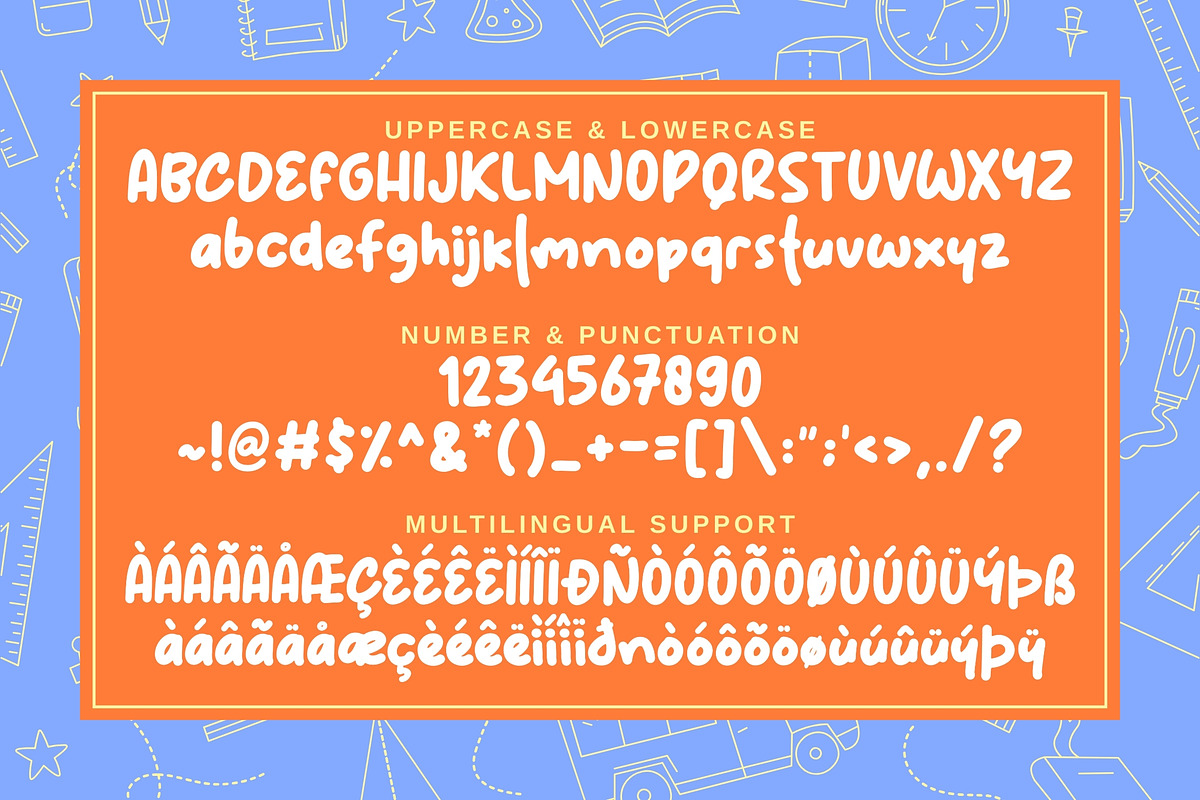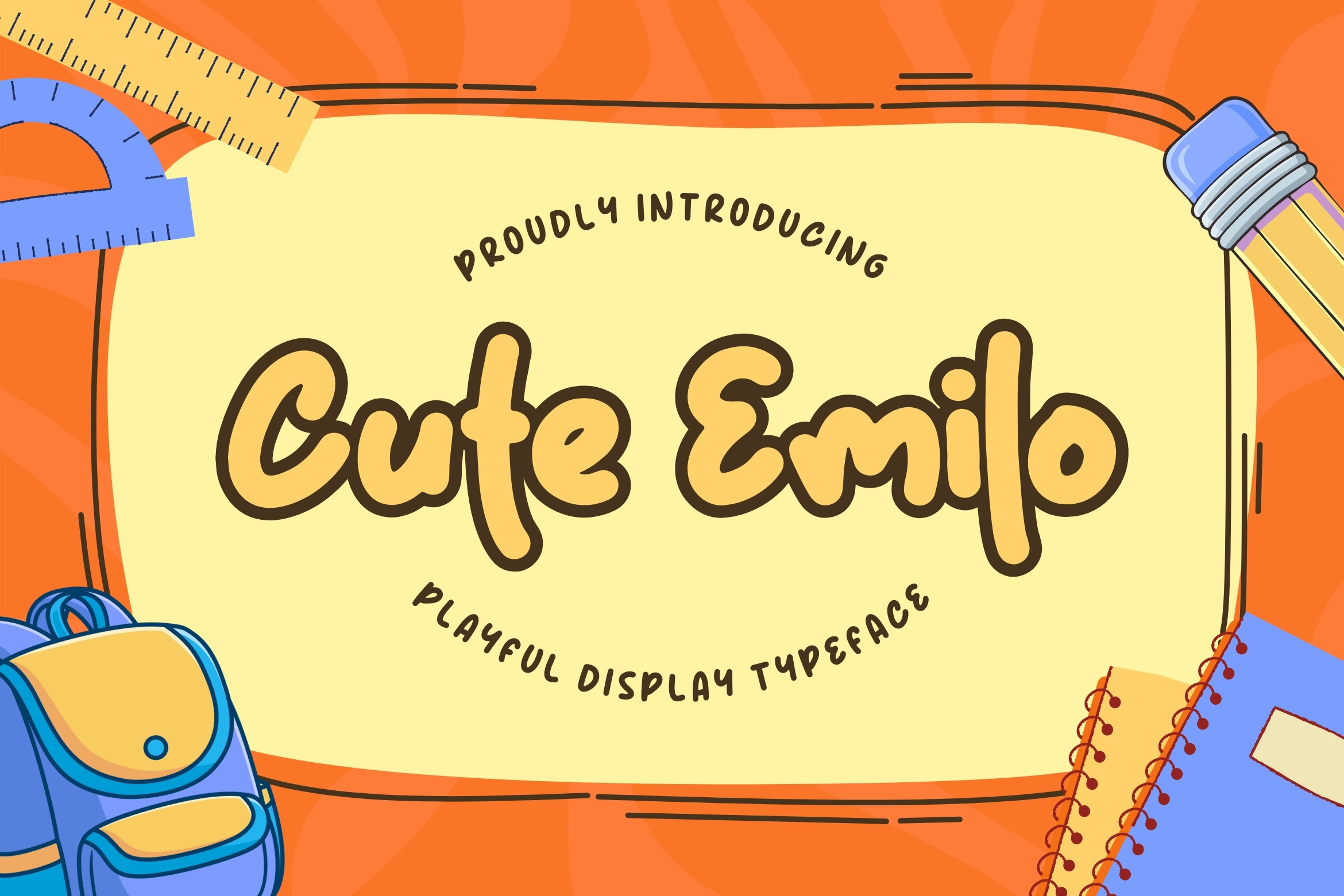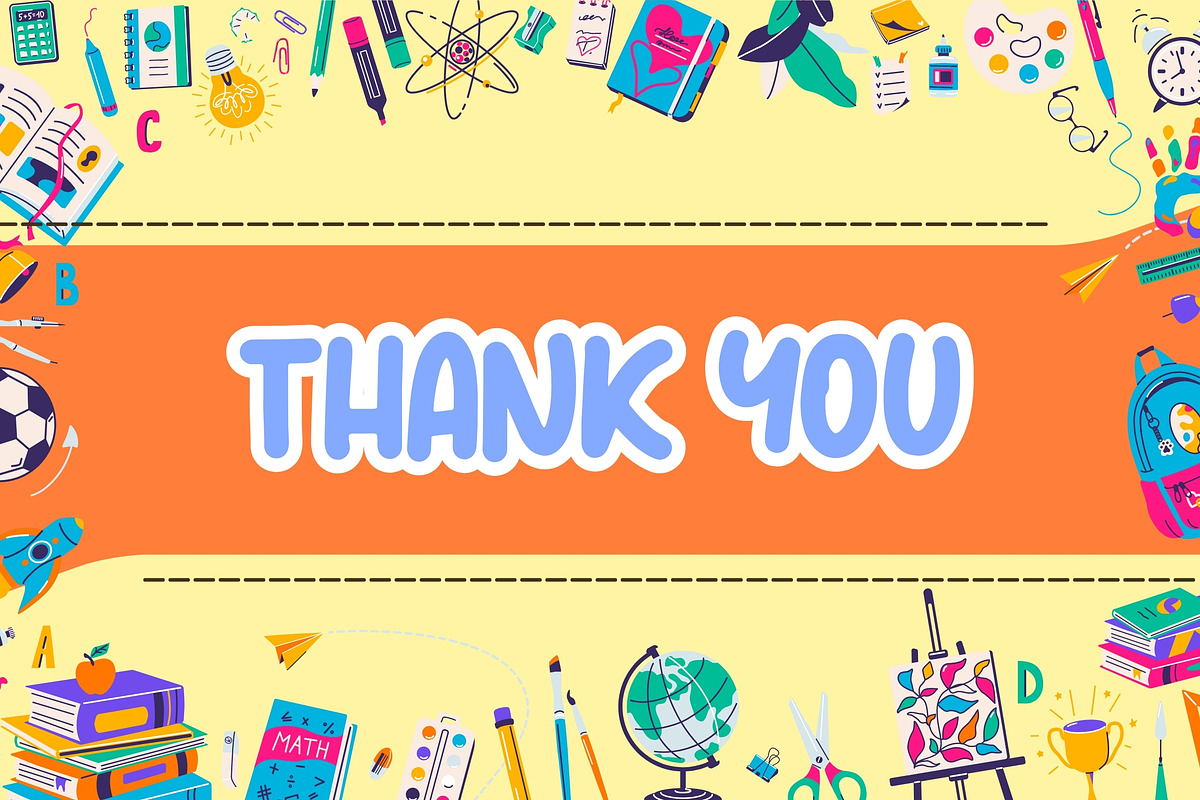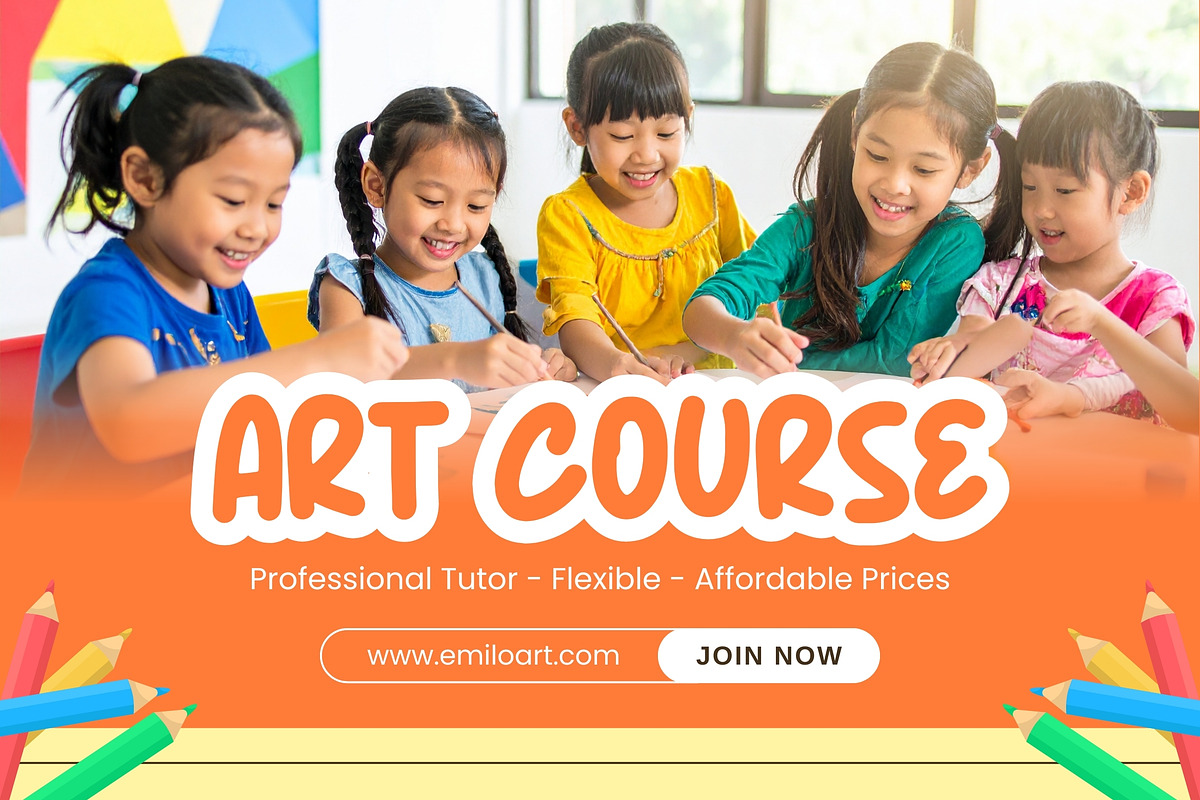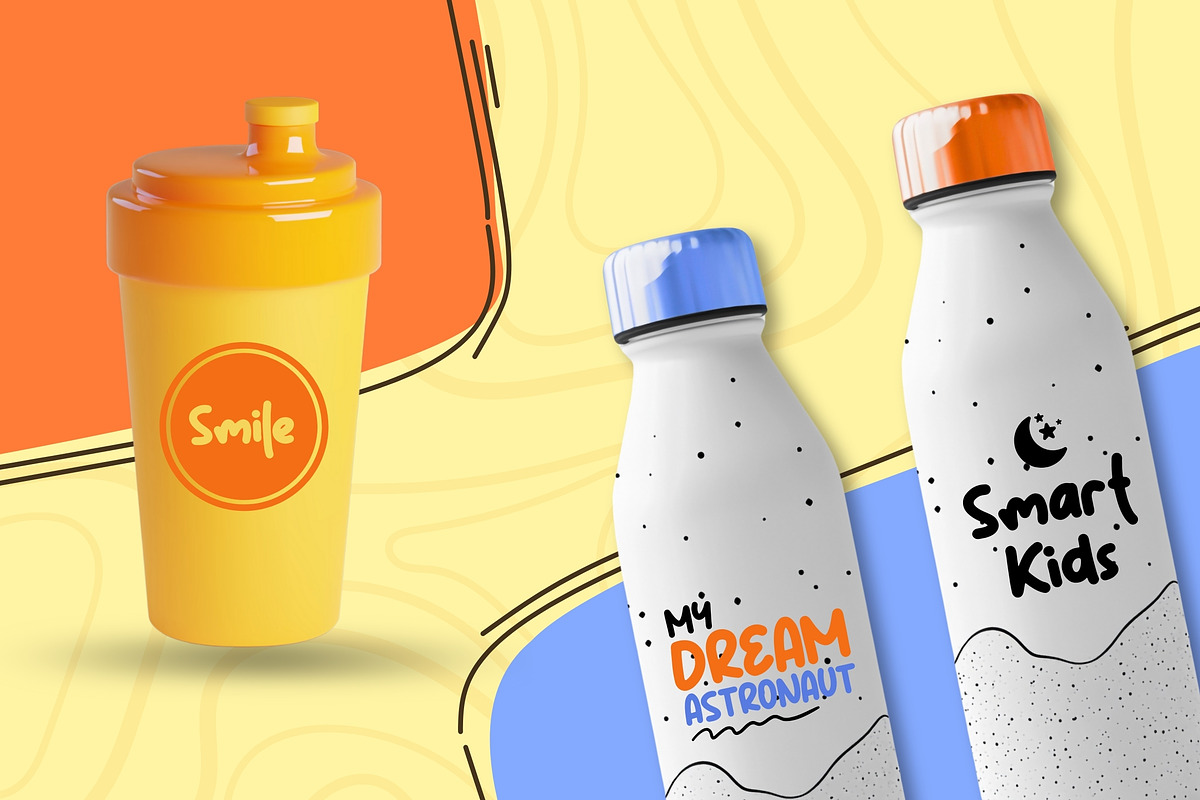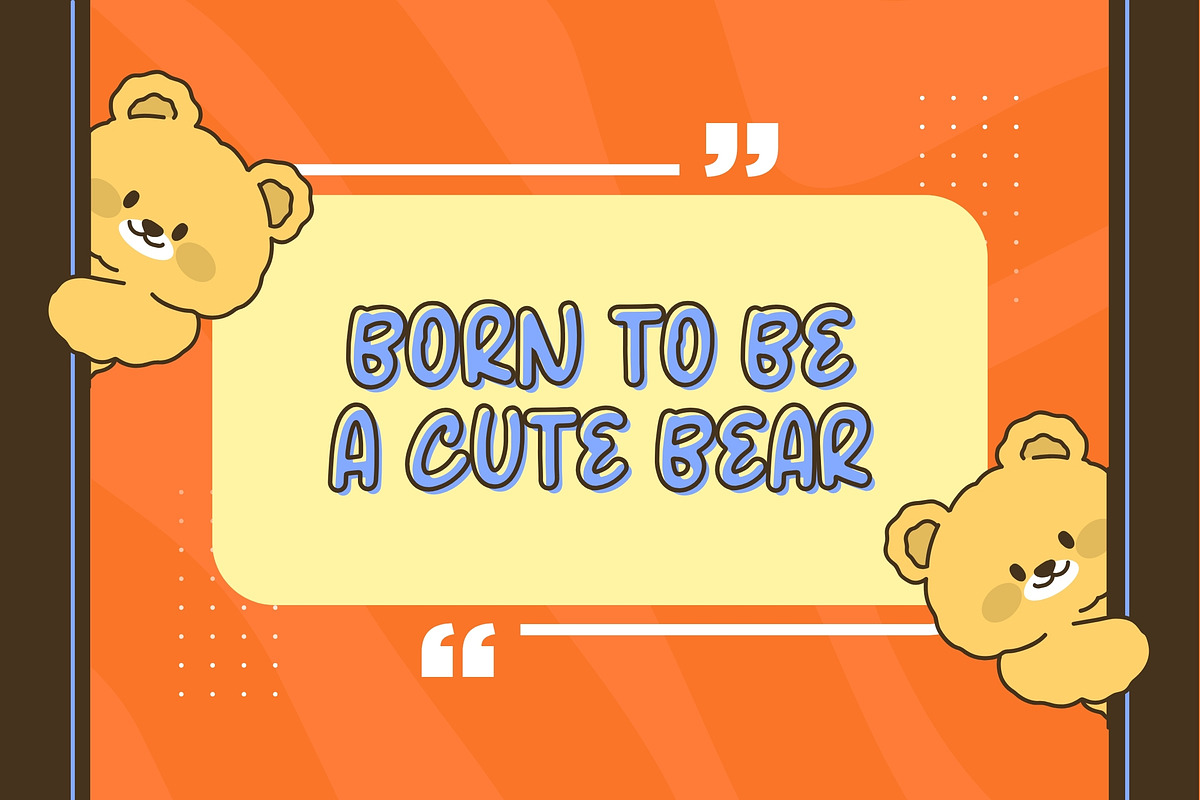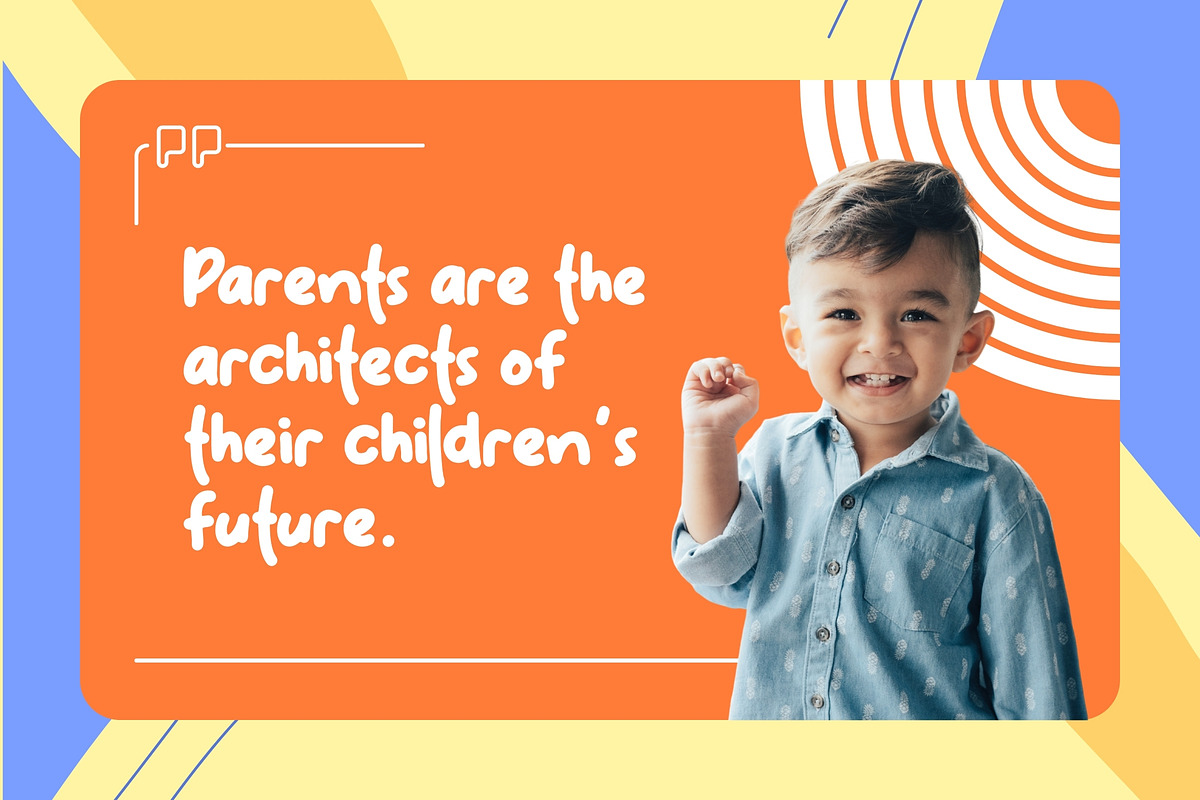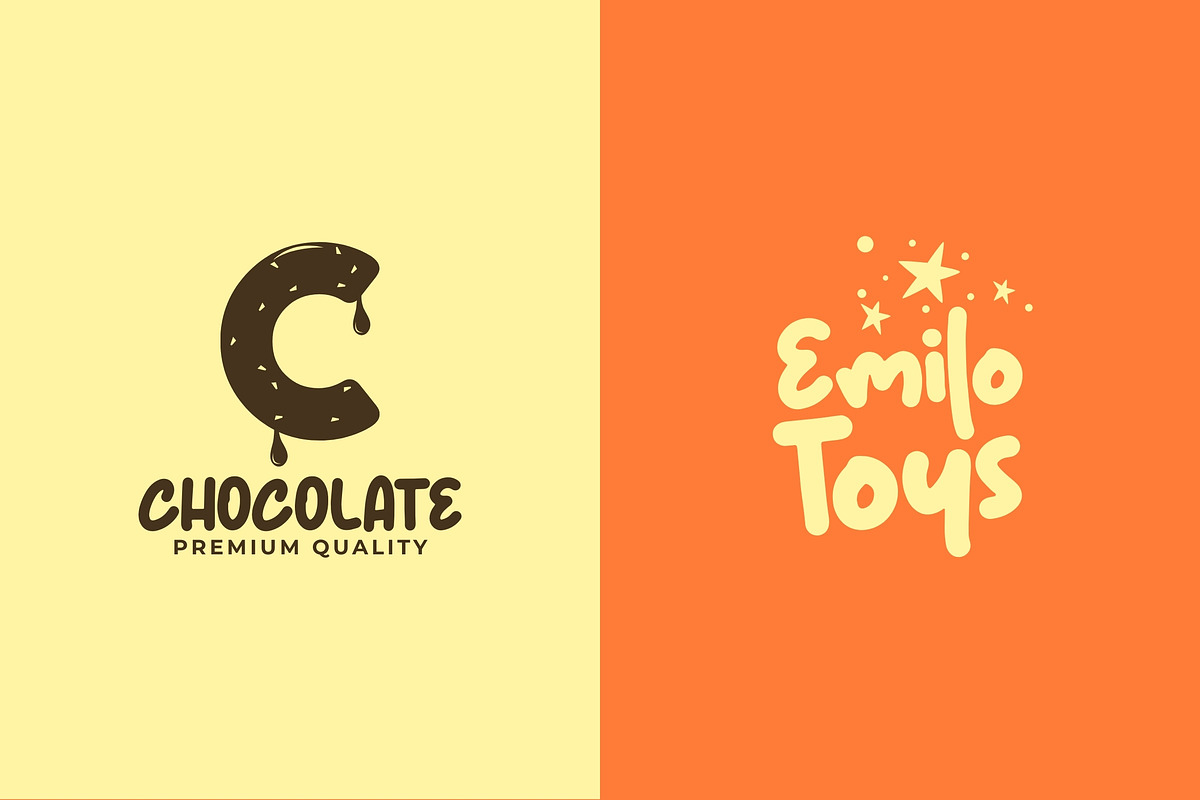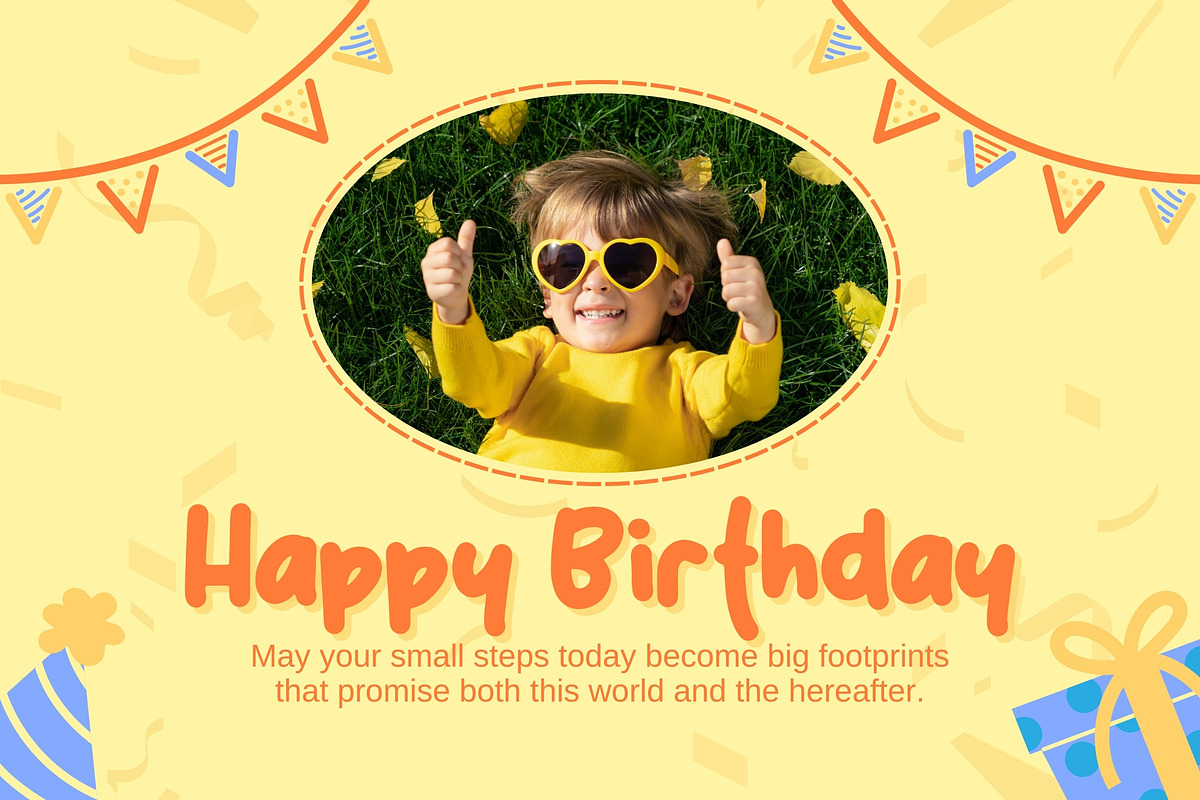
Cute Emilo – Playful Kids Font
Cute Emilo is a playful and energetic kids font designed to bring a fun, active, and cheerful learning atmosphere into your designs. With its rounded shapes and lively letterforms, this font perfectly captures the spirit of creativity, curiosity, and childhood excitement.
Cute Emilo is especially created for educational and school-related projects, helping designs feel friendly, engaging, and easy to read while still looking fun and expressive.
- School worksheets and educational materials
- Children’s books and learning content
- Classroom posters and teaching visuals
- Kids branding with a fun learning theme
- Titles, headlines, and playful typography
- Rounded, playful, and energetic style
- Multilingual character support
- Kid-friendly and highly readable
- Suitable for print and digital use
Why Choose Cute Emilo? Cute Emilo helps your designs feel alive, joyful, and full of learning energy. Its expressive yet clean letterforms make it ideal for educators, designers, and brands who want to communicate fun, creativity, and positivity in children-focused projects.